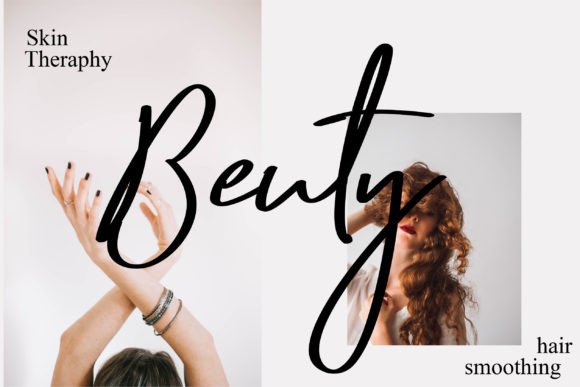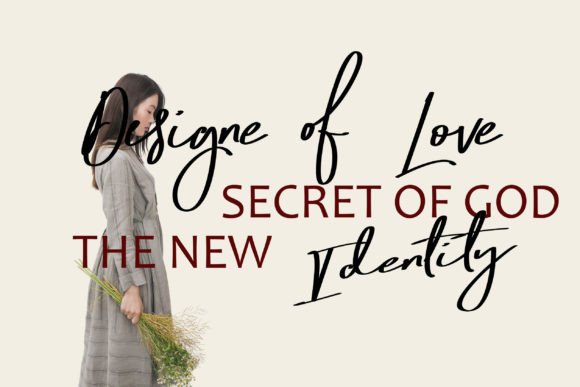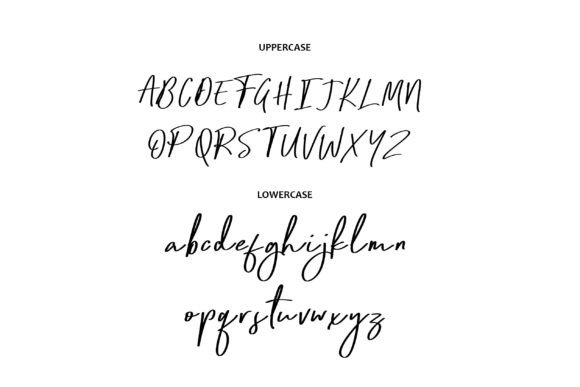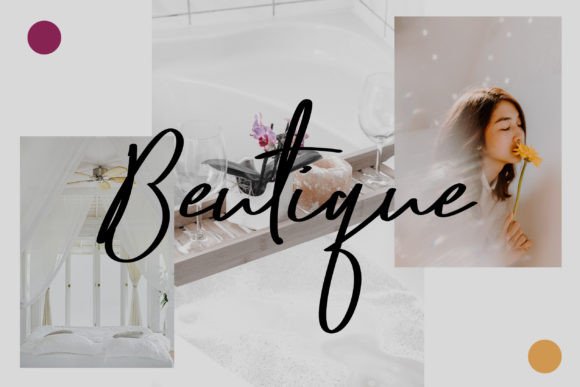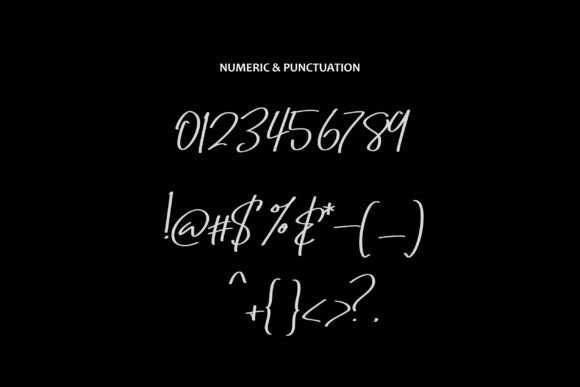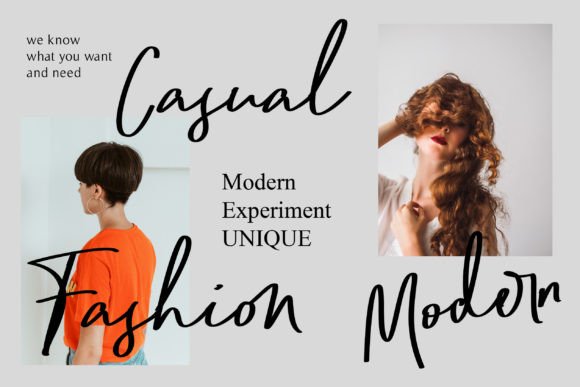
Introduction to Junst Font
Have you ever stared at a blank canvas, waiting for the perfect font to bring your creative project to life? That’s exactly what happened to me the last time I was working on a design. I was searching for a font that would elevate my design to the next level, something that would add a touch of elegance and sophistication. And then, I stumbled upon the Junst Font.
This high-quality font is more than just a pretty face – it’s a game-changer for designers. With its delicate, flowing characters, the Junst Font is a versatile design resource that can be used in a wide range of creative projects. Whether you’re working on a brochure, a website, or a social media graphic, this font is sure to impress. And the best part? It’s available for free download, making it an accessible resource for designers of all levels.
One of the things that sets the Junst Font apart from other fonts is its transparent background, which makes it easy to layer over images or other design elements. This level of customization is invaluable for designers, who often need to experiment with different layouts and compositions to get the perfect look. With the Junst Font, the possibilities are endless, and I’m excited to dive in and explore all the ways it can be used.
Key Features of Junst Font
- High-quality vector graphics with a transparent background, making it ideal for creative projects.
- Available in 4 different font styles (Junst Font Regular, Junst Font Italic, Junst Font Bold, Junst Font Bold Italic) for added design versatility.
- Includes a high-resolution design (300 DPI) for crisp and clear display in print materials.
- Designed with a modern aesthetic, making it perfect for creative projects, such as logos, branding materials, and digital art.
Honest Review: Junst Font
I recently had the opportunity to try out the Junst Font for a creative project, and I must say it was a pleasant experience. The Junst Font is a high-quality design resource that offers a lot of flexibility.
Here are some of the things that work well: ✨ The font is highly customizable, allowing you to adjust the size, color, and style to suit your needs. The Junst Font is also available for free download, making it an excellent choice for designers on a budget. Additionally, the font has a transparent background, which is ideal for designs where you need to layer elements.
One limitation I noticed is that the font may not be suitable for all types of designs. ⚠️ The Junst Font has a bold and playful style, which may not be the best choice for formal or corporate projects. However, for creative projects such as social media graphics, flyers, or posters, the Junst Font is an excellent choice.
Overall, I’m impressed with the Junst Font and would definitely consider using it for future projects. The high-quality design and flexibility make it an excellent addition to any designer’s toolkit.
Junst Font is a versatile design resource that can be used in a variety of creative projects, including logo design, graphic design, and digital marketing materials. Its transparent background feature makes it perfect for creating eye-catching graphics and logos, while its high-quality design ensures that your designs look professional and polished.